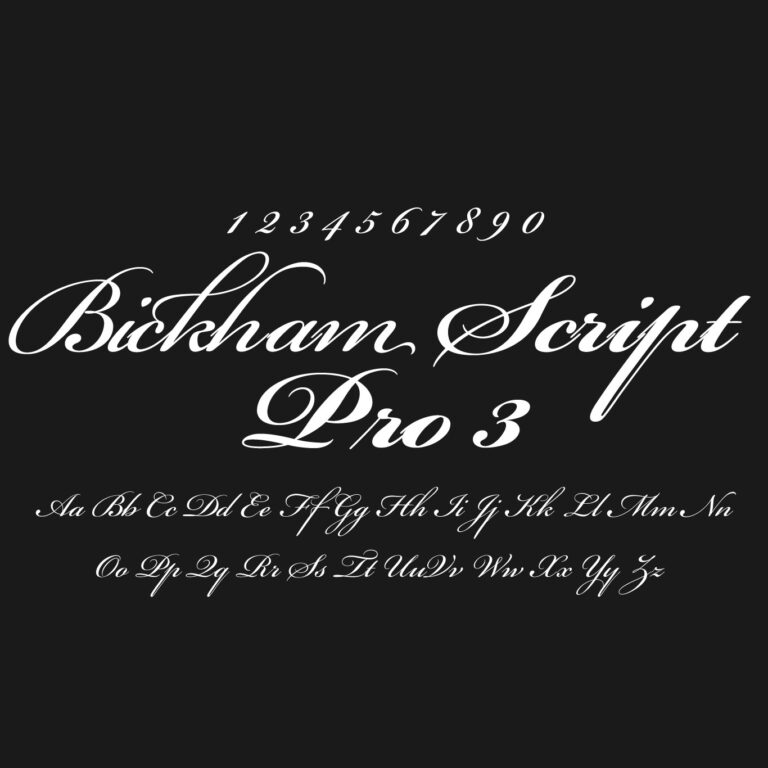
Bickham Script Pro 3 is an elegant script typeface with a refined calligraphic style, flowing letterforms and formal handwritten character. It works well for wedding invitations, certificates, luxury branding, packaging, greeting cards, stationery, logos, event graphics, editorial titles and typography projects that need a sophisticated ornamental script look.
Designer: Richard Lipton
Foundry: Adobe